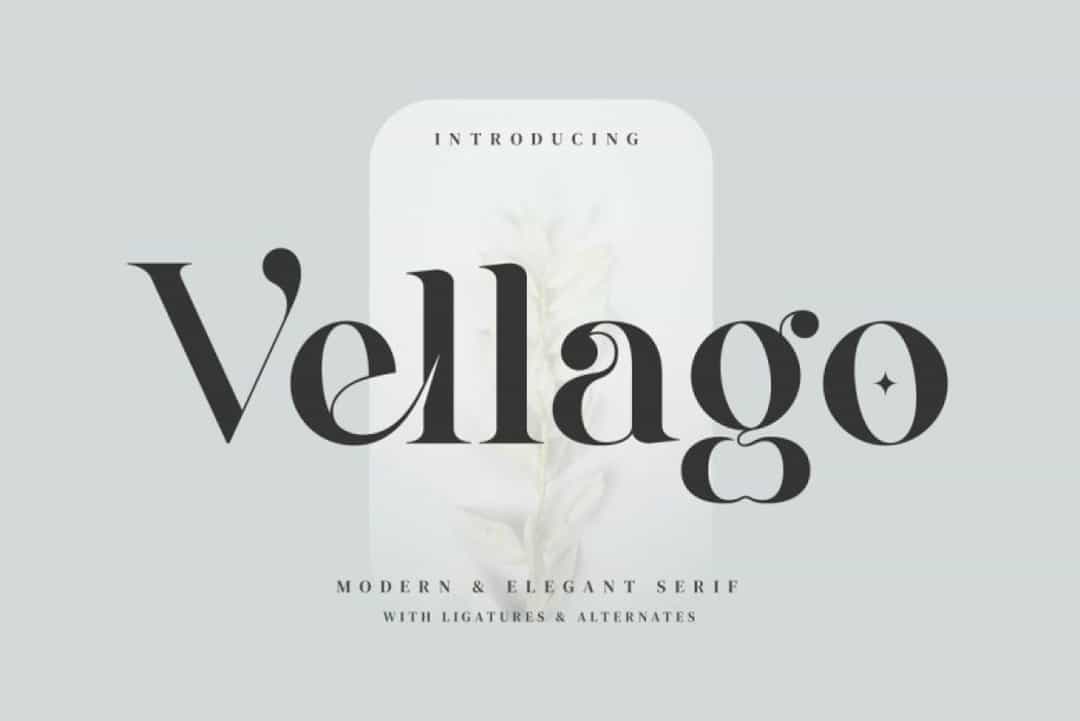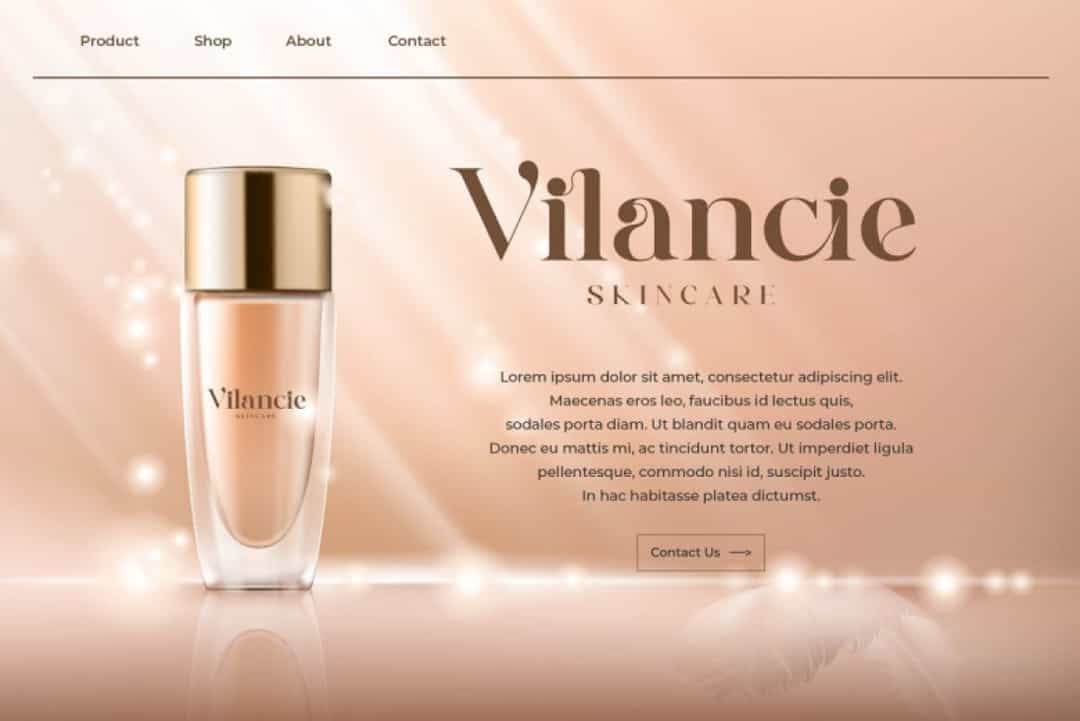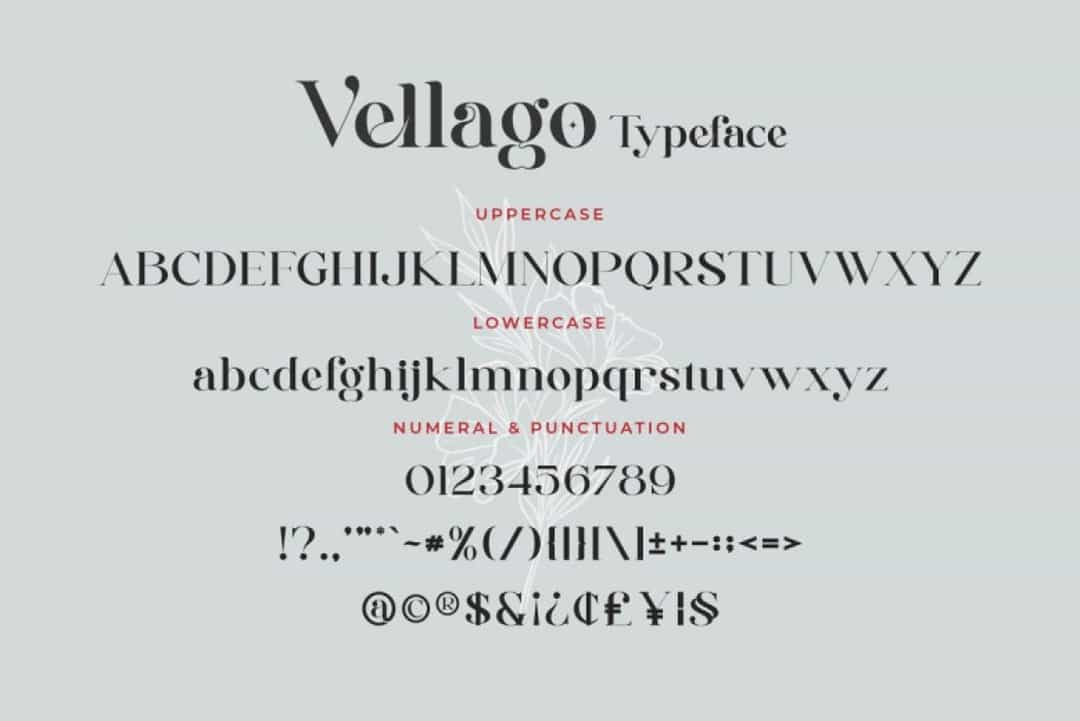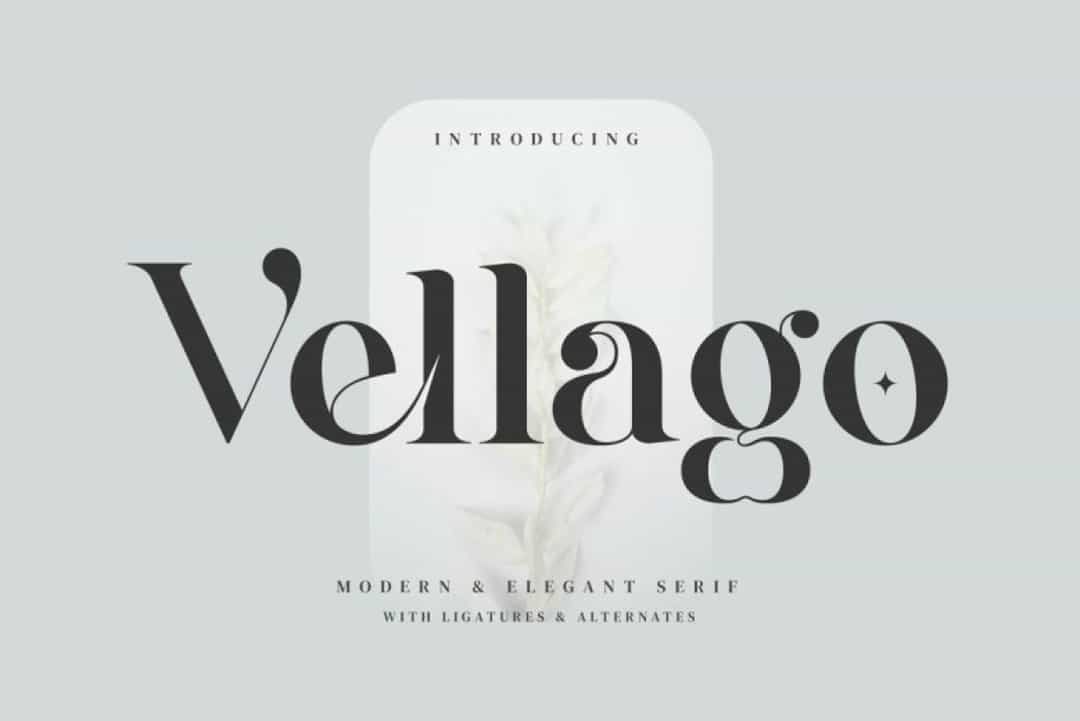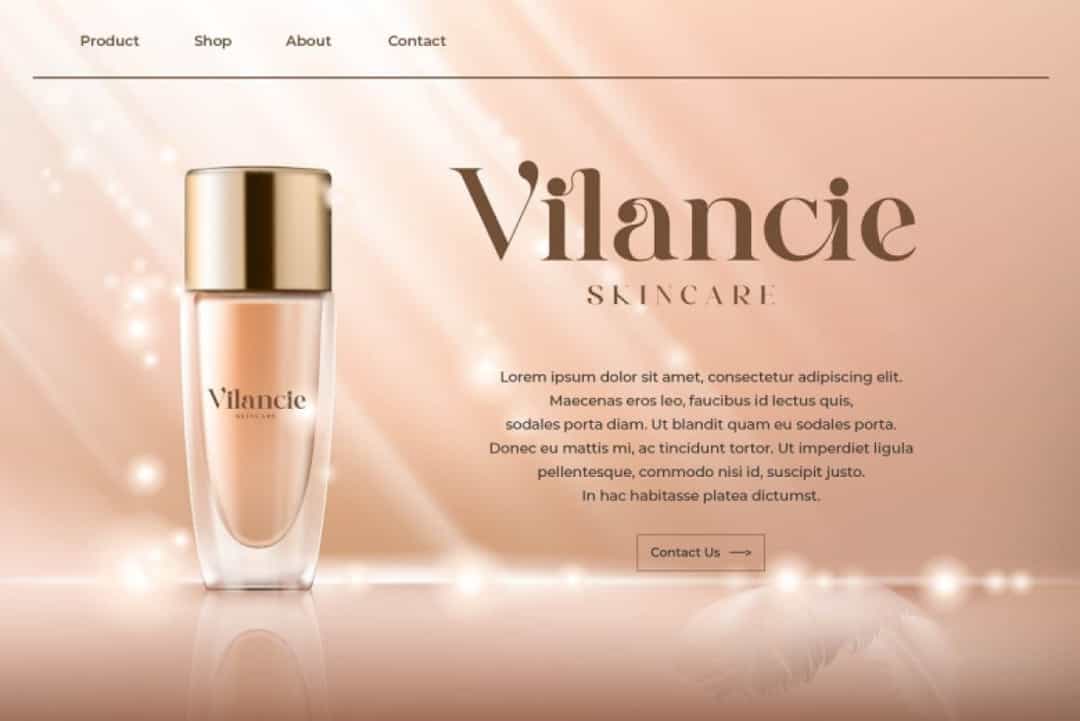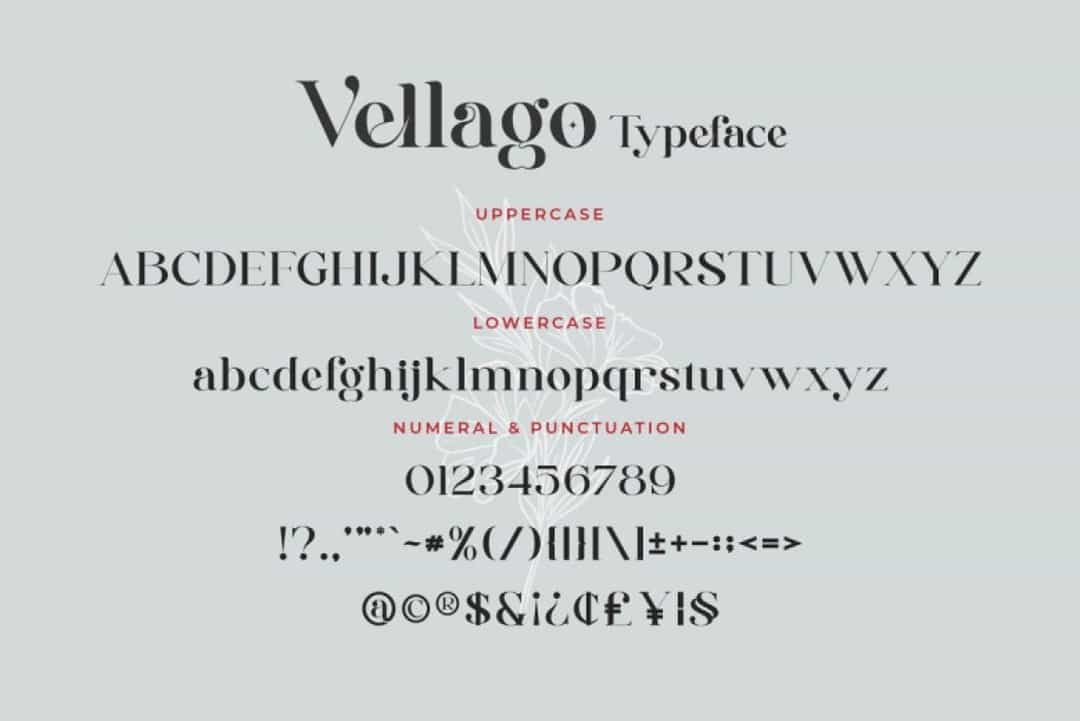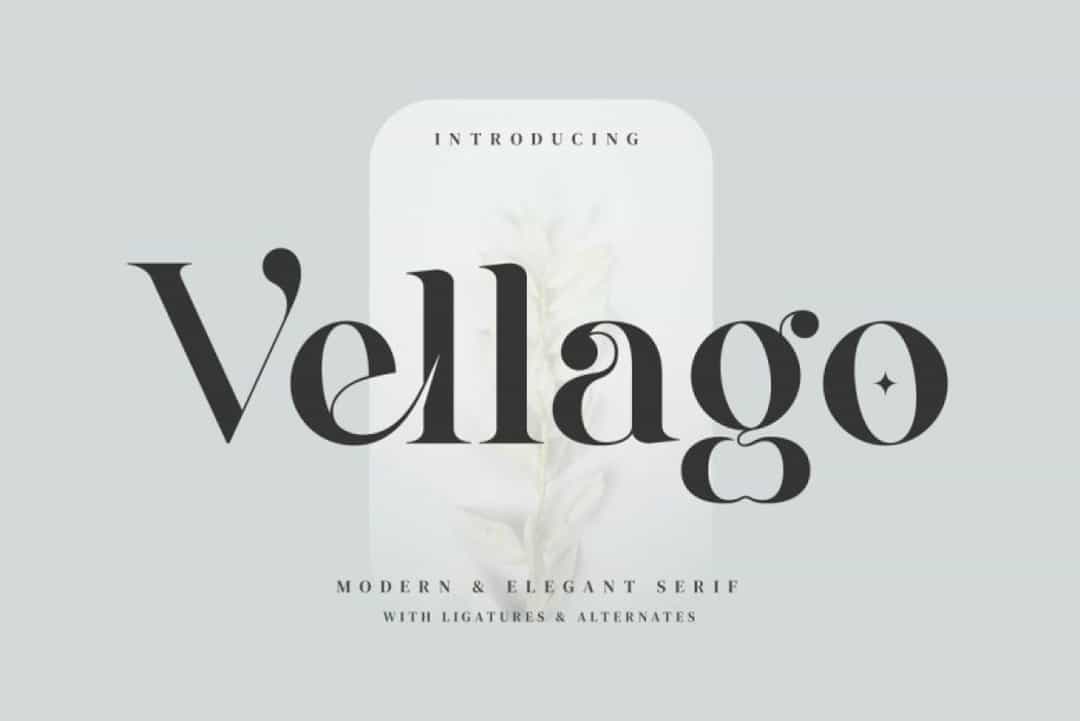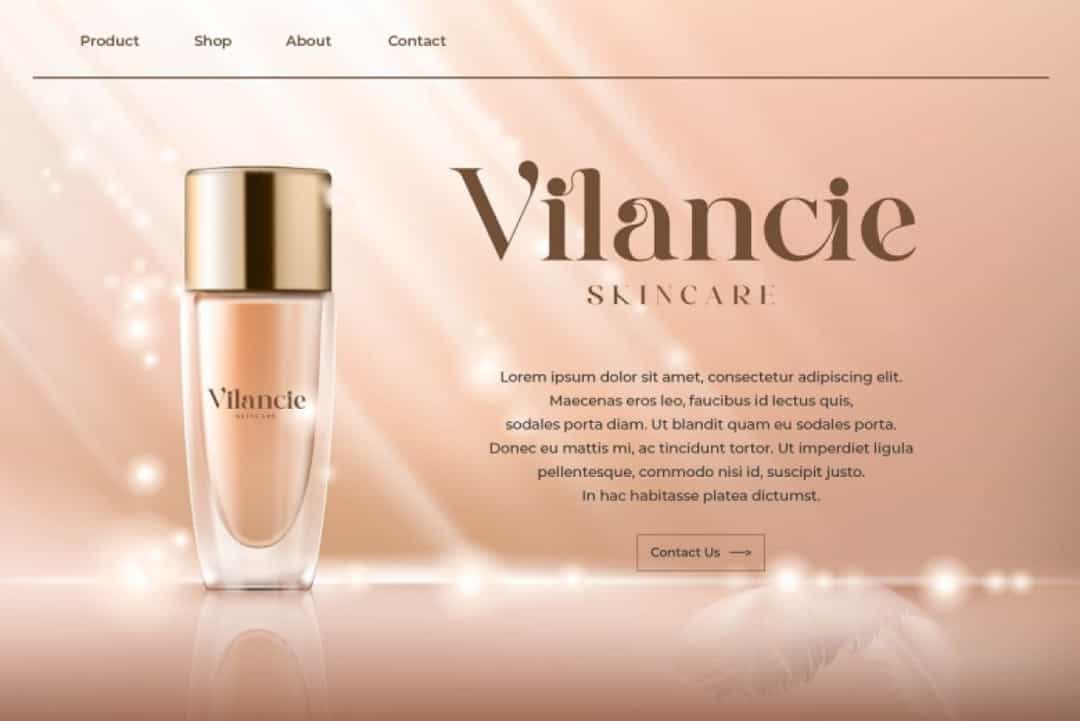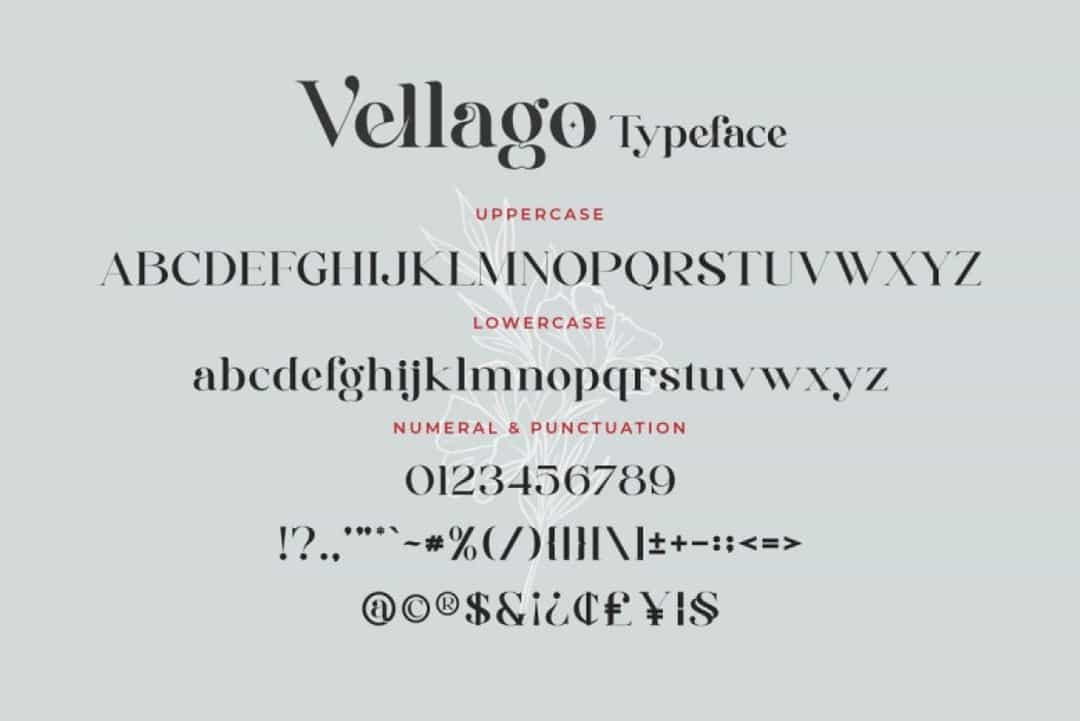
Vellago, It is an elegant serif typeface designed to impress users with its modern yet chic characters, ideal for creating brochures, templates videos advertisements branding logos and other designs. Furthermore, this Font has been encoded PUA so you can access all its characters with ease!